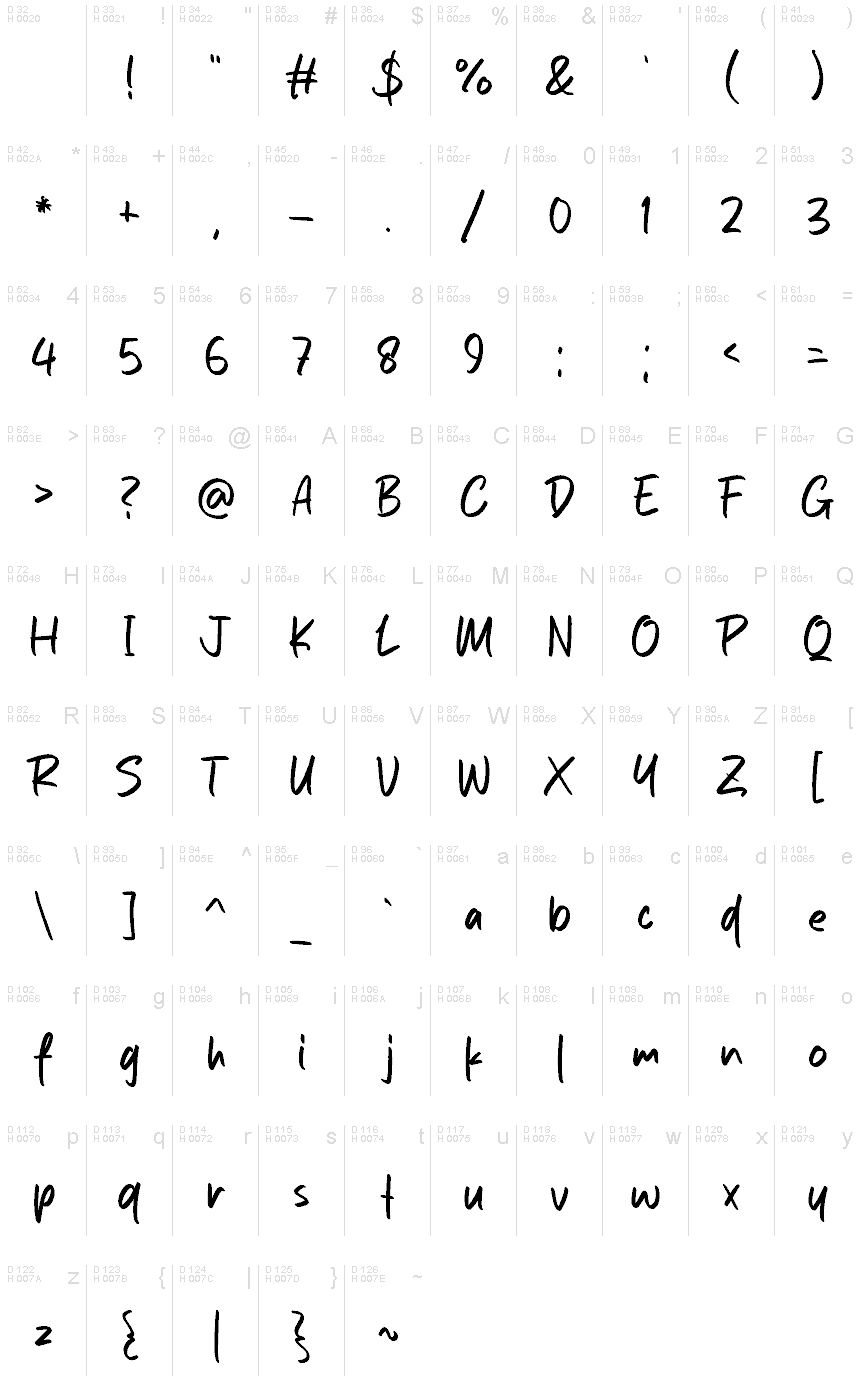
Sugar Dady
Sugar Dady font is a handwritten masterpiece from MJType, featuring a casual elegance with a modern feel that draws readers in. Its expressive character and friendly tone create a warm and welcoming atmosphere suitable for various creative endeavors.
This free handwritten font excels in invitations, greeting cards, social media posts, branding projects, logo designs, packaging, book covers, editorial layouts, web designs, merchandise labels, and posters.